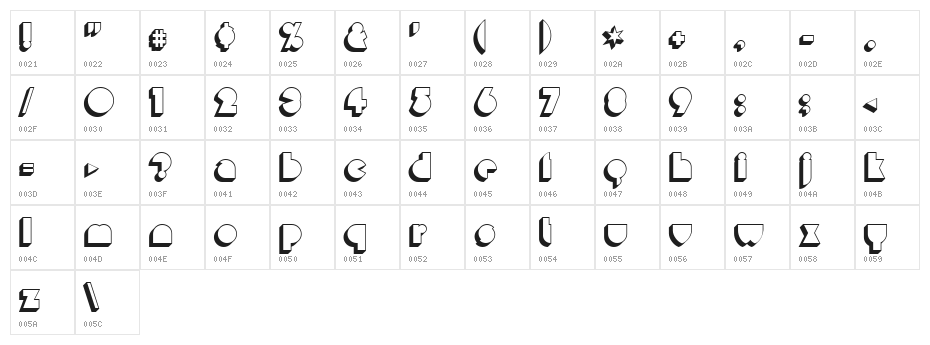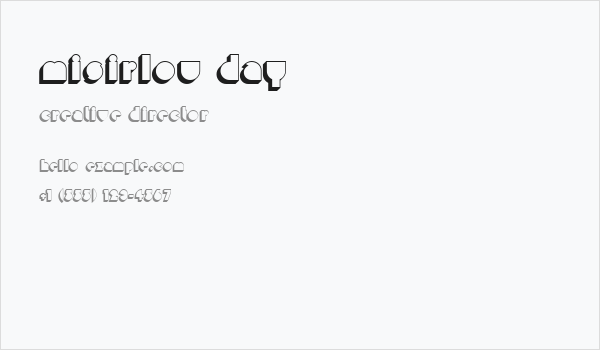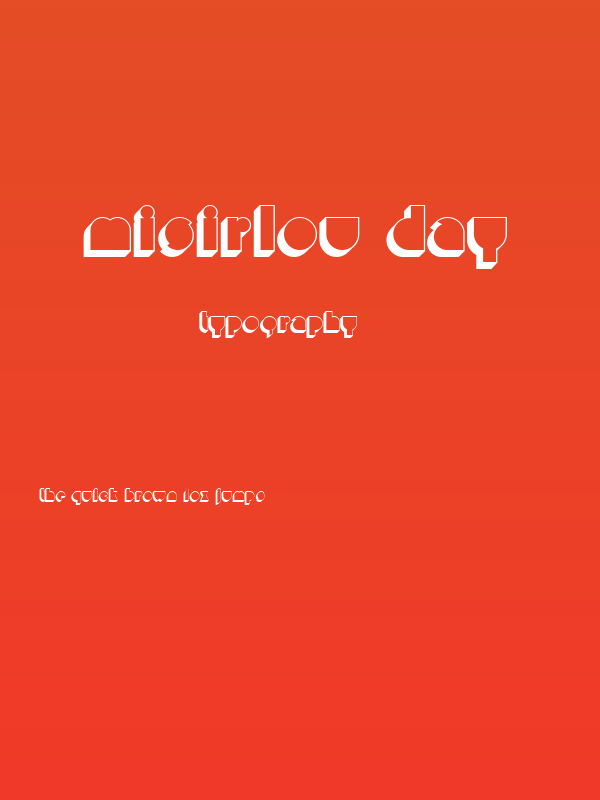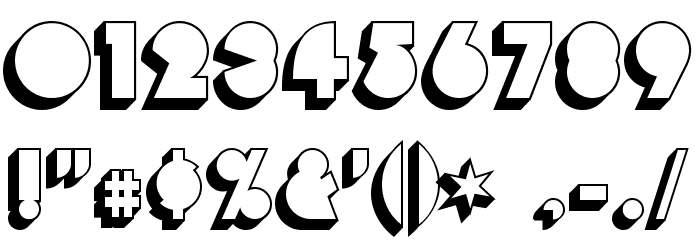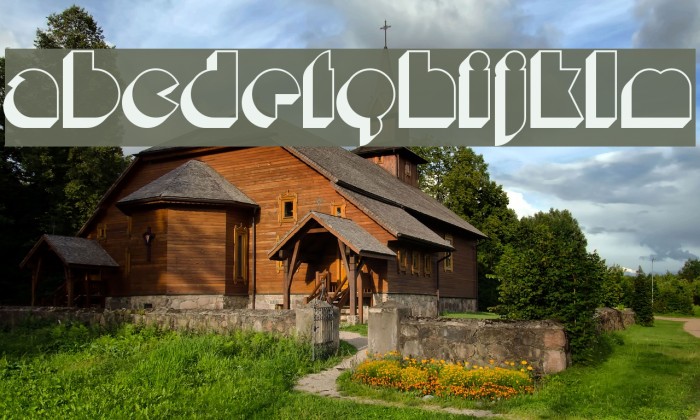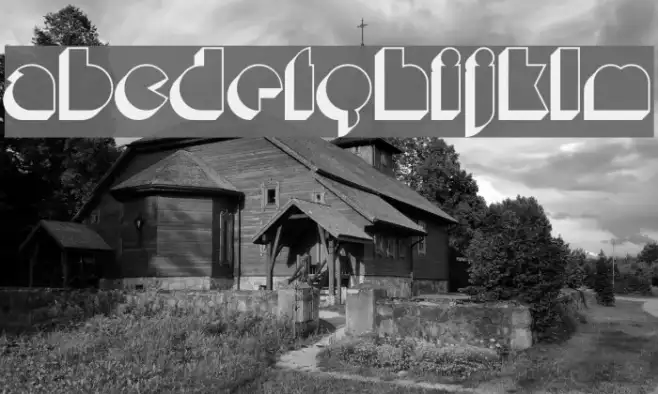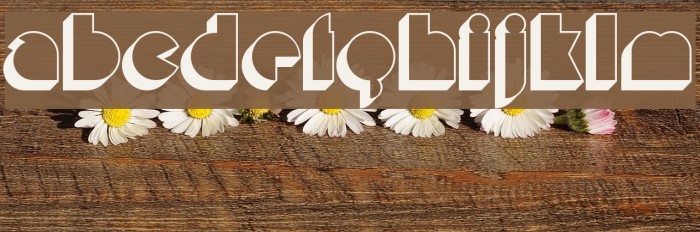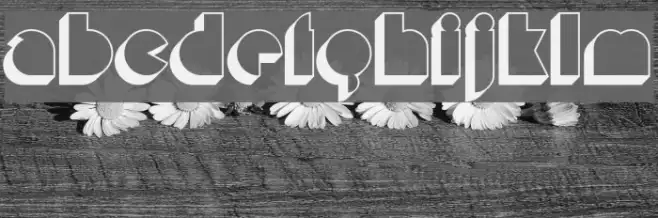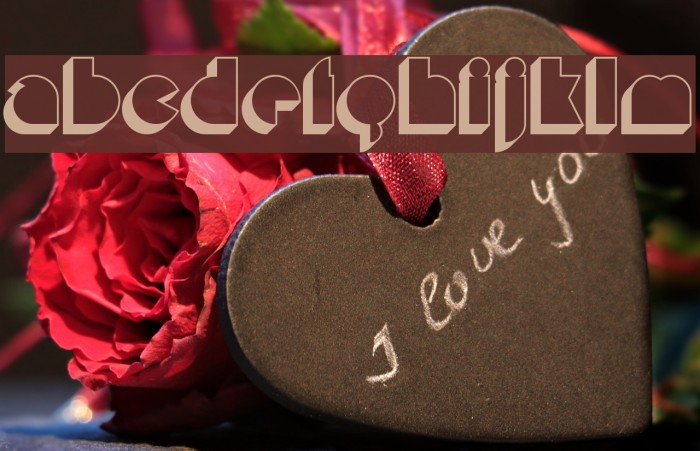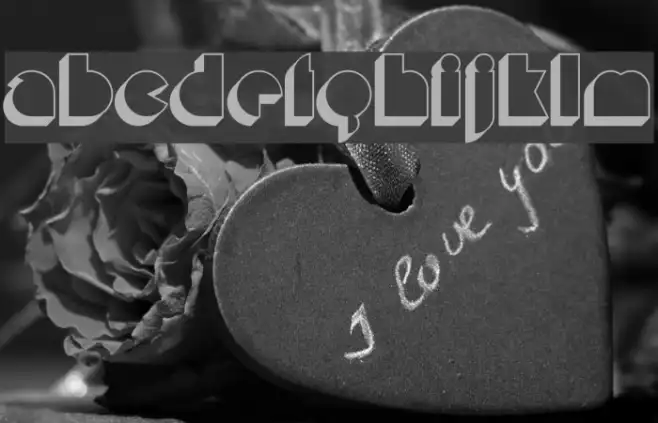
Misirlou Day Font
Misirlou Day Description
This font features a bold, geometric design with a distinct shadow effect that gives it a three-dimensional appearance. The characters are constructed with clean lines and sharp angles, creating a modern and futuristic look. The uppercase and lowercase letters maintain a consistent style, with rounded edges that contrast with the angular elements. Numbers and special characters are designed to match the overall aesthetic, ensuring a cohesive visual presentation. The font's unique style makes it stand out, suitable for projects that require a strong and impactful typeface.